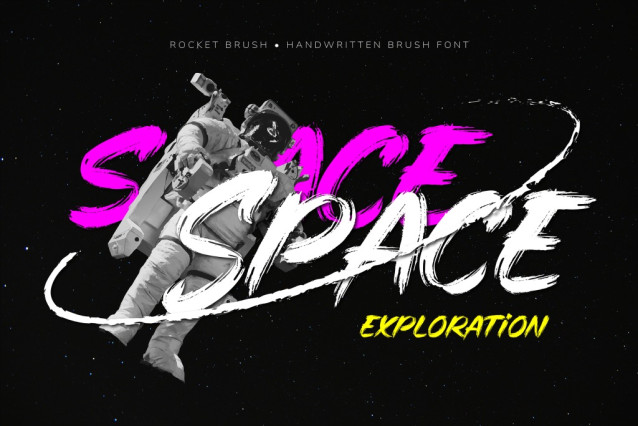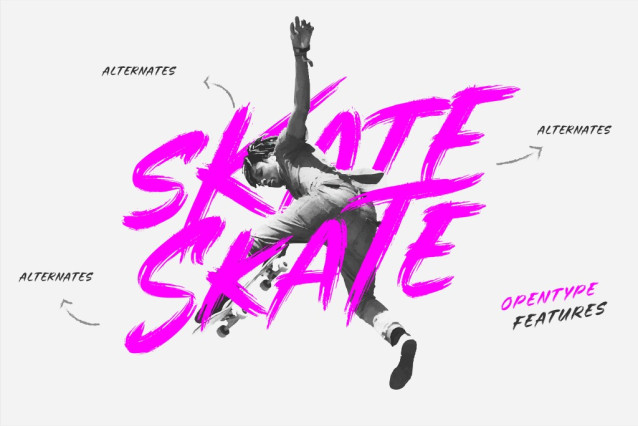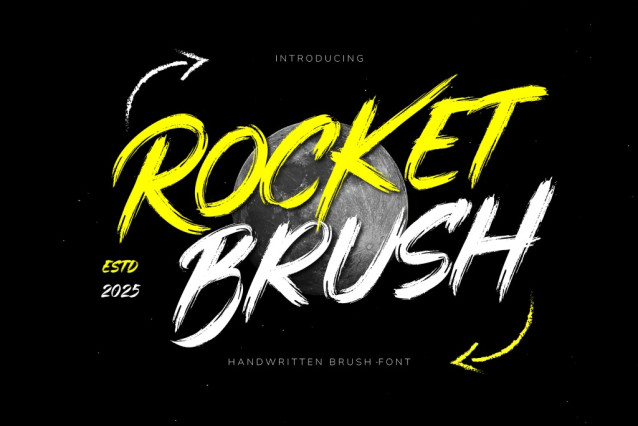
Rocket Brush Typeface
Rocket Brush Typeface a handcrafted brush font pulsing with raw, energetic style. Each letter is infused with dynamic strokes and bold character, making it the perfect choice for projects that demand attention and personality.
Whether you’re designing edgy logos, striking posters, or standout social media graphics, Rocket Brush brings a powerful handcrafted feel that’s impossible to ignore. Inspired by the untamed spirit of street art and the fluidity of natural brushwork, this font adds movement and emotion to every word.